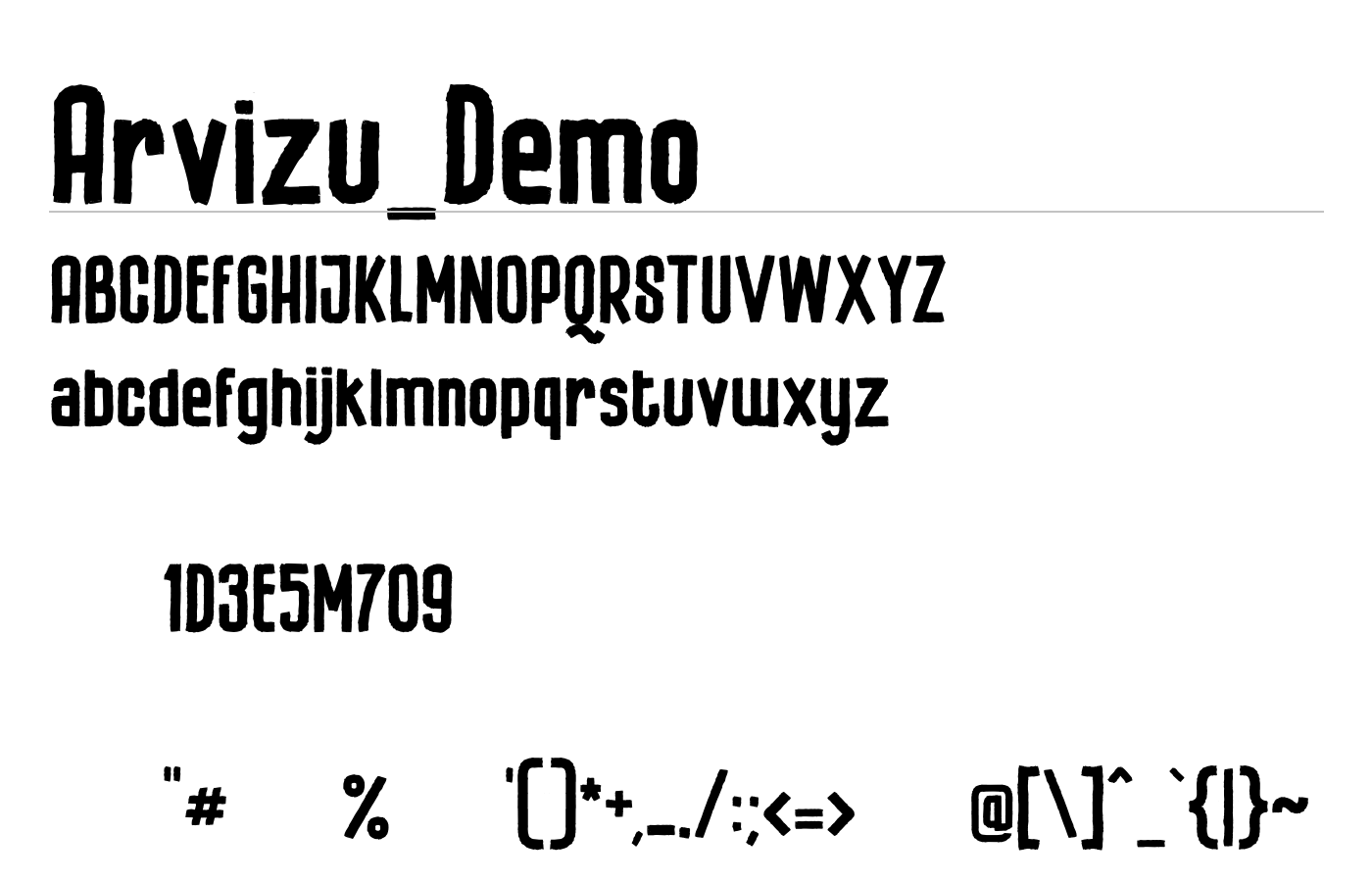
Arvizu_Demo is a bold, condensed sans serif font with a rough, hand-crafted texture that adds a raw, expressive quality to the letters. Its tall x-height and slightly irregular shapes give it a strong, energetic character, making it ideal for headlines, posters, and branding that seek a rugged, vintage, or artisanal vibe. This font works well in creative and informal contexts where a distinctive, impactful look is desired.
Arvizu_Demo Font
About Arvizu_Demo Font